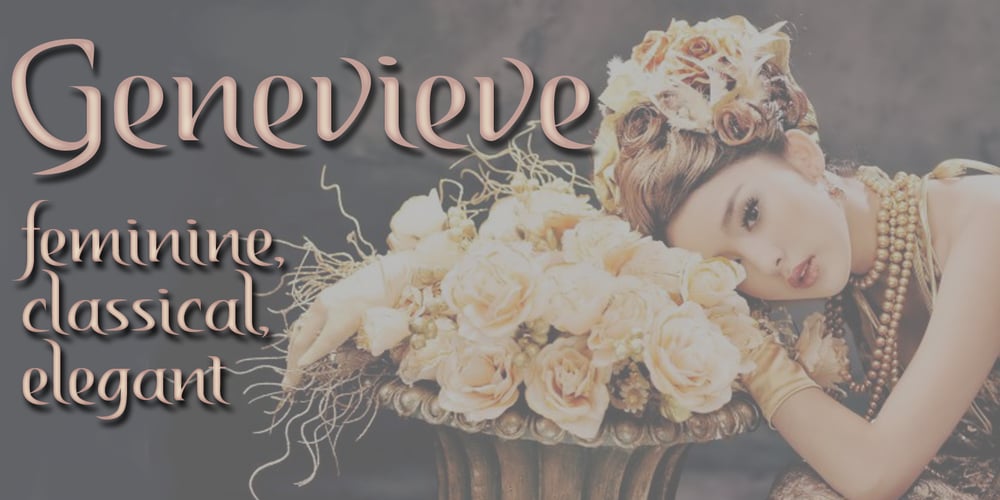
Genevieve Font Family was designed by Anton Scholtz and published by Scholtz Fonts. Genevieve contains 1 styles and family package options. Genevieve combines the elegance of classical calligraphy with a feminine, yet contemporary, economy of line. It will enhance the appearance of advertisements, wedding invitations, headlines and posters. It contains a full character set and is professionally letter-spaced and kerned.